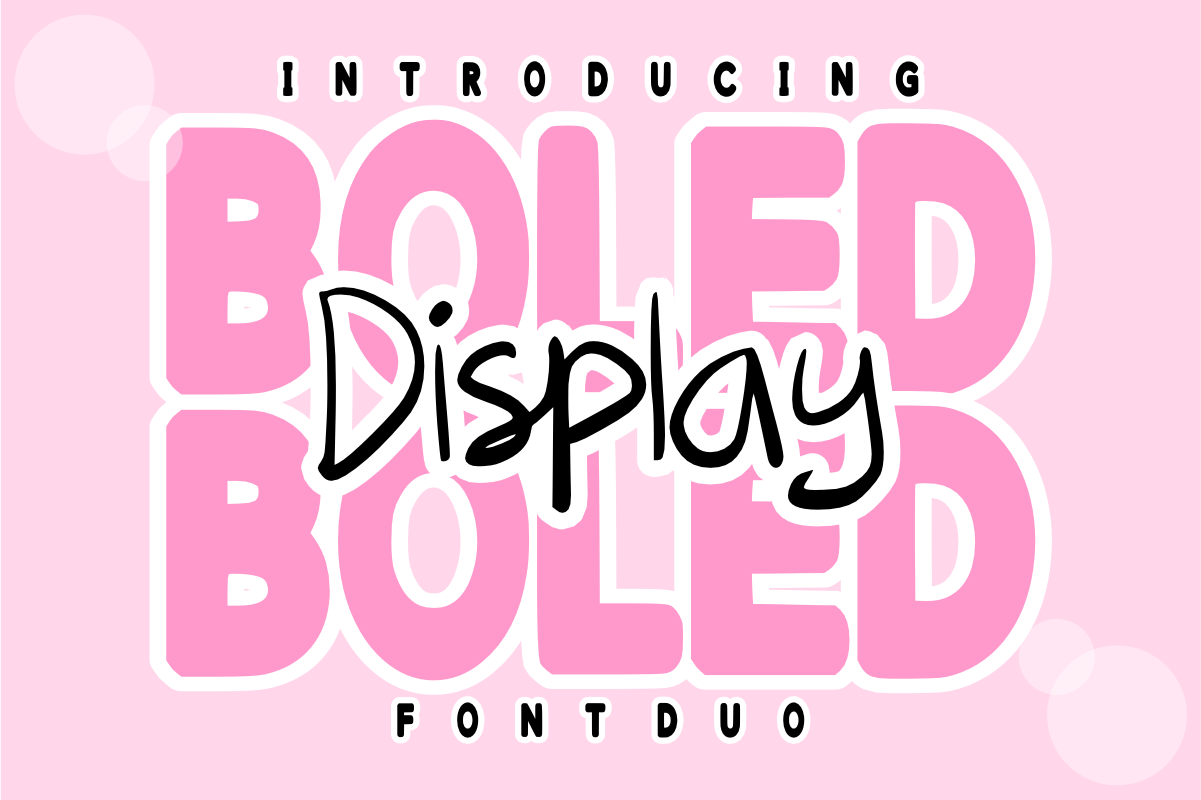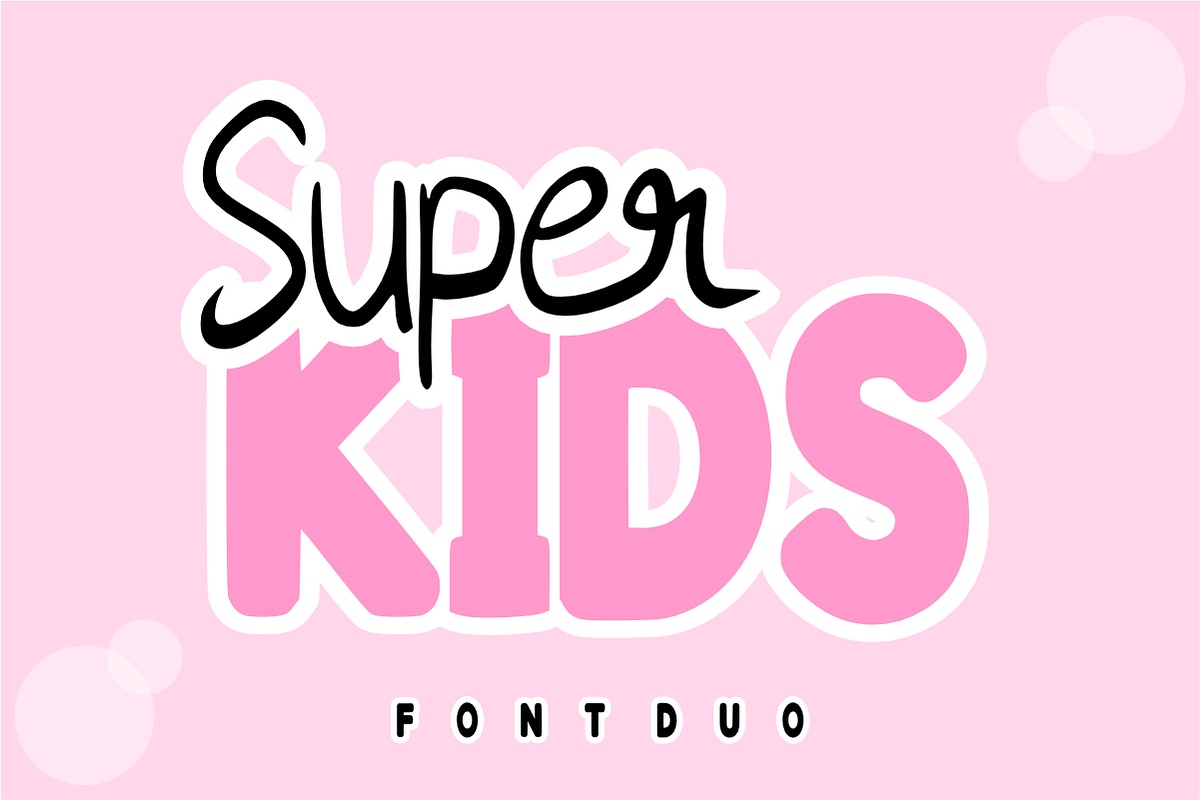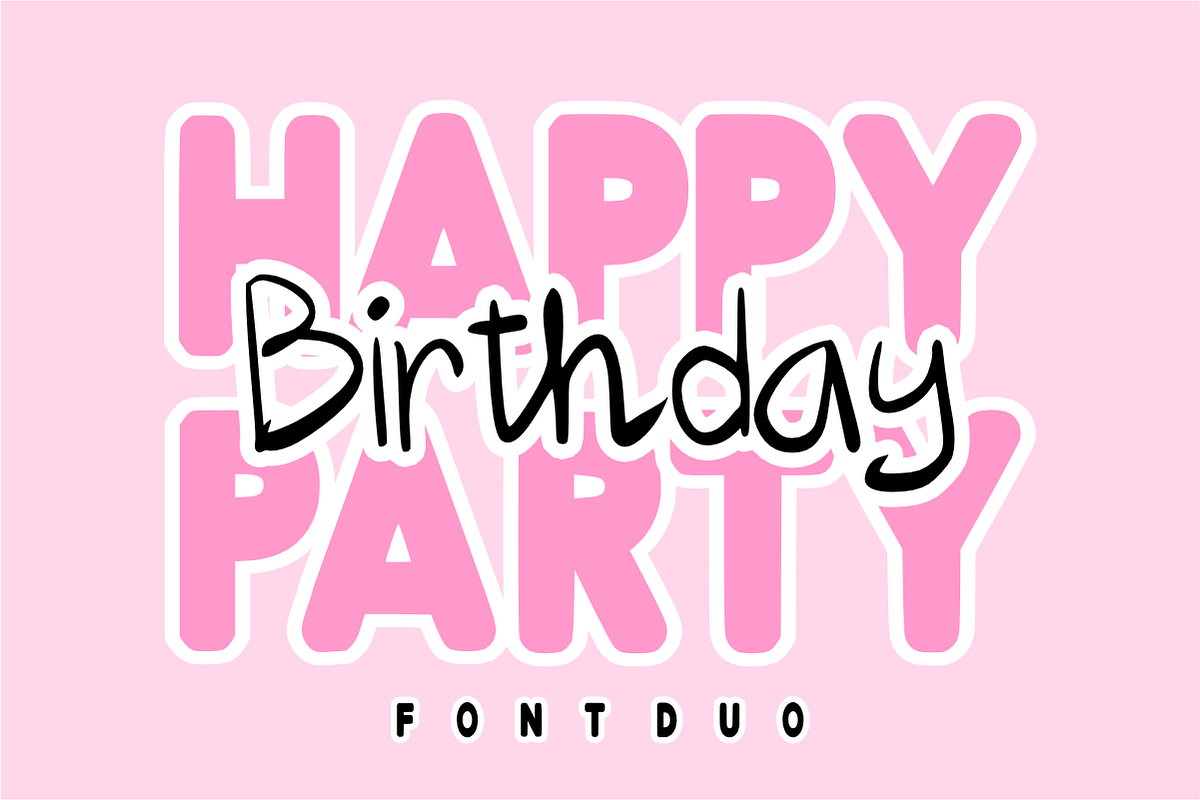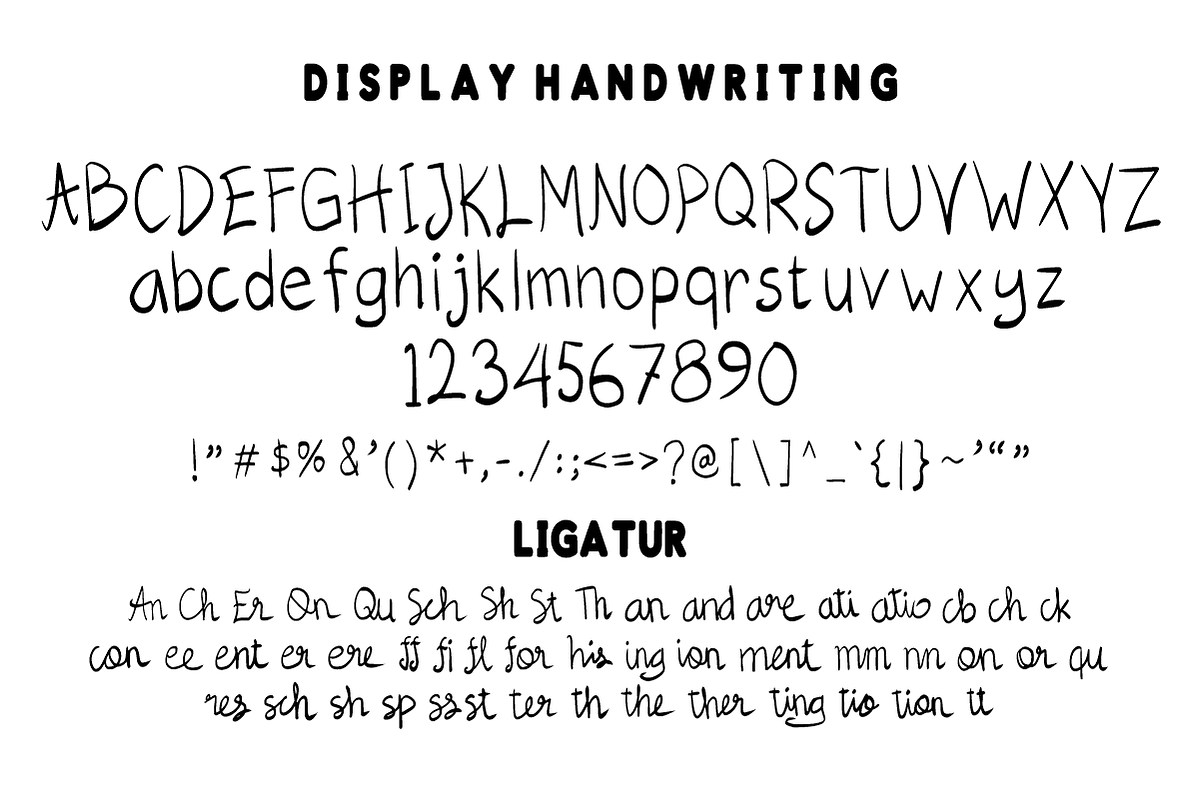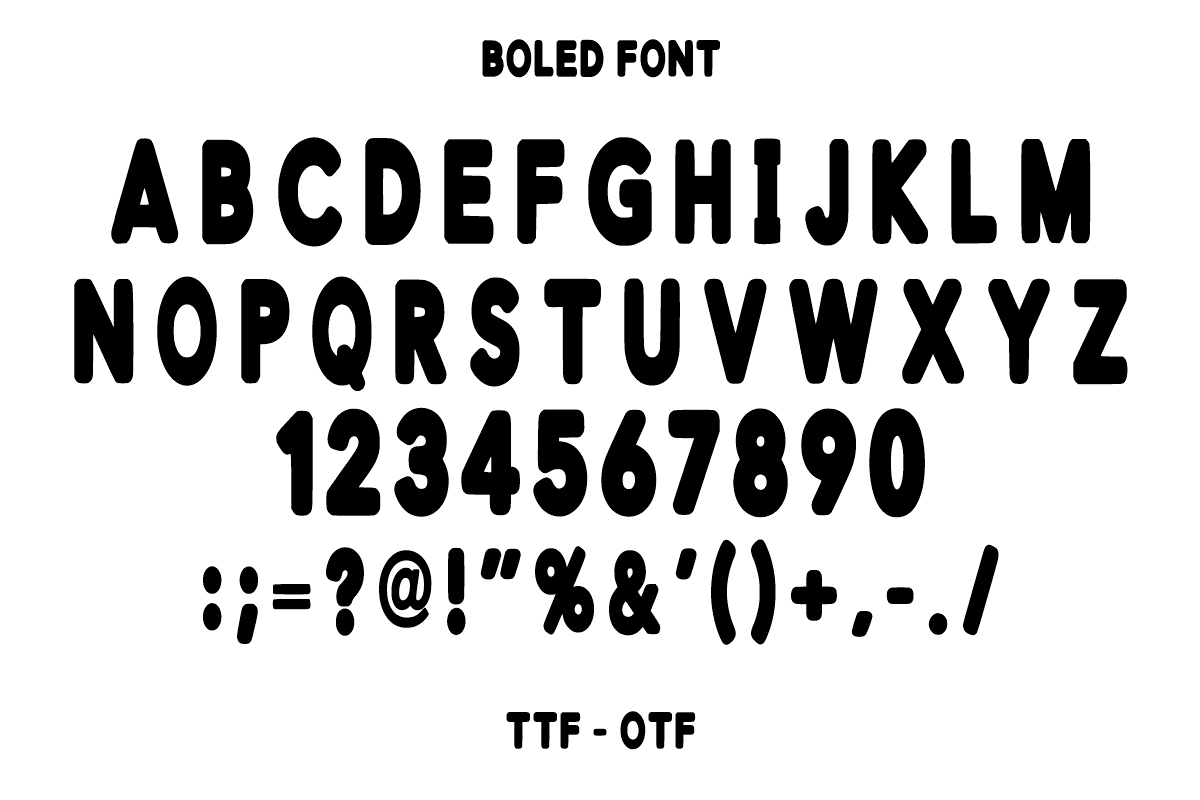
Boled Display - Playful Font Duo
Boled Display – A Bold & Trendy Playful Font Duo ✨💖
Double the fun, double the impact!
Boled Display is a dynamic font duo designed to bring a modern, playful energy to your creative projects. This pairing features a massive, chunky all-caps display font that commands attention, perfectly complemented by a fluid, handwritten script with elegant ligatures. Designed with a "sticker-style" aesthetic in mind, this duo takes the guesswork out of font pairing, giving you a professional, ready-to-use look instantly.
🌟 Why Boled Display is a Must-Have:
Instant Font Pairing: No more searching for the perfect match—the bold "Boled" and the graceful "Script" are engineered to work together flawlessly.
Chunky & High-Impact: The display font features thick, rounded forms that are perfect for titles, headlines, and "sticker" effects.
Organic Script Flow: The handwriting style includes ligatures to ensure a natural, seamless look that feels truly hand-drawn.
Two Styles: Ultra-Bold Bubbly (All-Caps) & Elegant Handwritten Script (with Ligatures).
Full Set: Matching numbers and essential simple punctuation for both fonts.